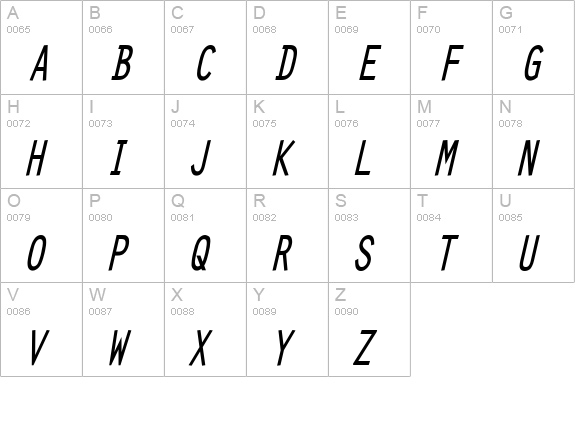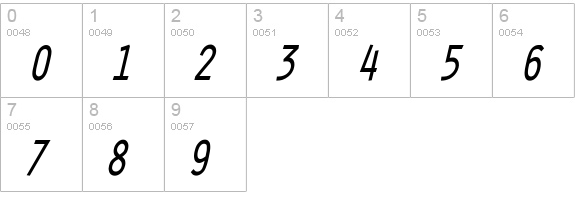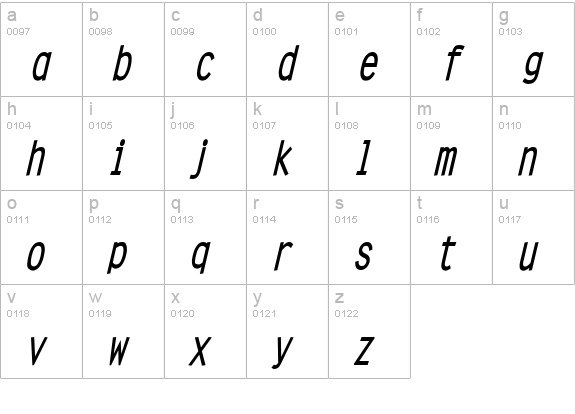
Clean Condensed Bold Italic Font Details
Clean Condensed Bold Italic is a strong, high-contrast, condensed-width, italic variant in the Clean typeface family \xE2\x80\x94 well suited to headlines, attention-grabbing titles, and strong calls-to-action.
Introducing Clean Condensed Bold Italic font, a sleek and modern typeface that commands attention with its bold yet refined presence. This font exudes sophistication and professionalism, making it ideal for a wide range of design projects. Its condensed form allows for efficient use of space without sacrificing readability, while the bold italic styling adds a touch of flair and emphasis. Available for free download at FontsMarket.com, Clean Condensed Bold Italic font offers a versatile solution for designers seeking a bold and contemporary typeface. Whether used in headlines, branding, packaging, or editorial design, this font is sure to make a statement and leave a lasting impression. Don't miss out on the opportunity to elevate your projects with this stylish and impactful font - download it for free today!